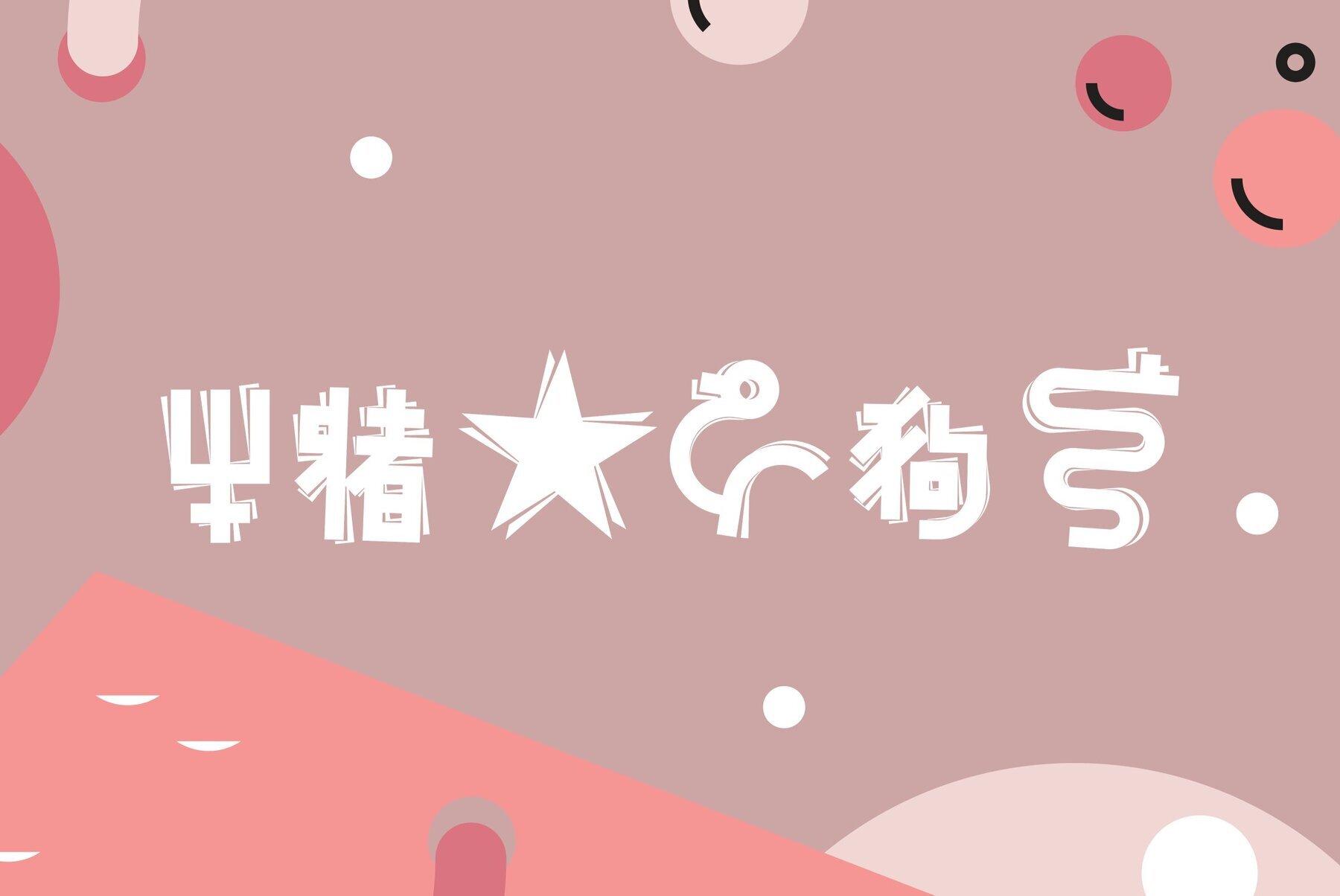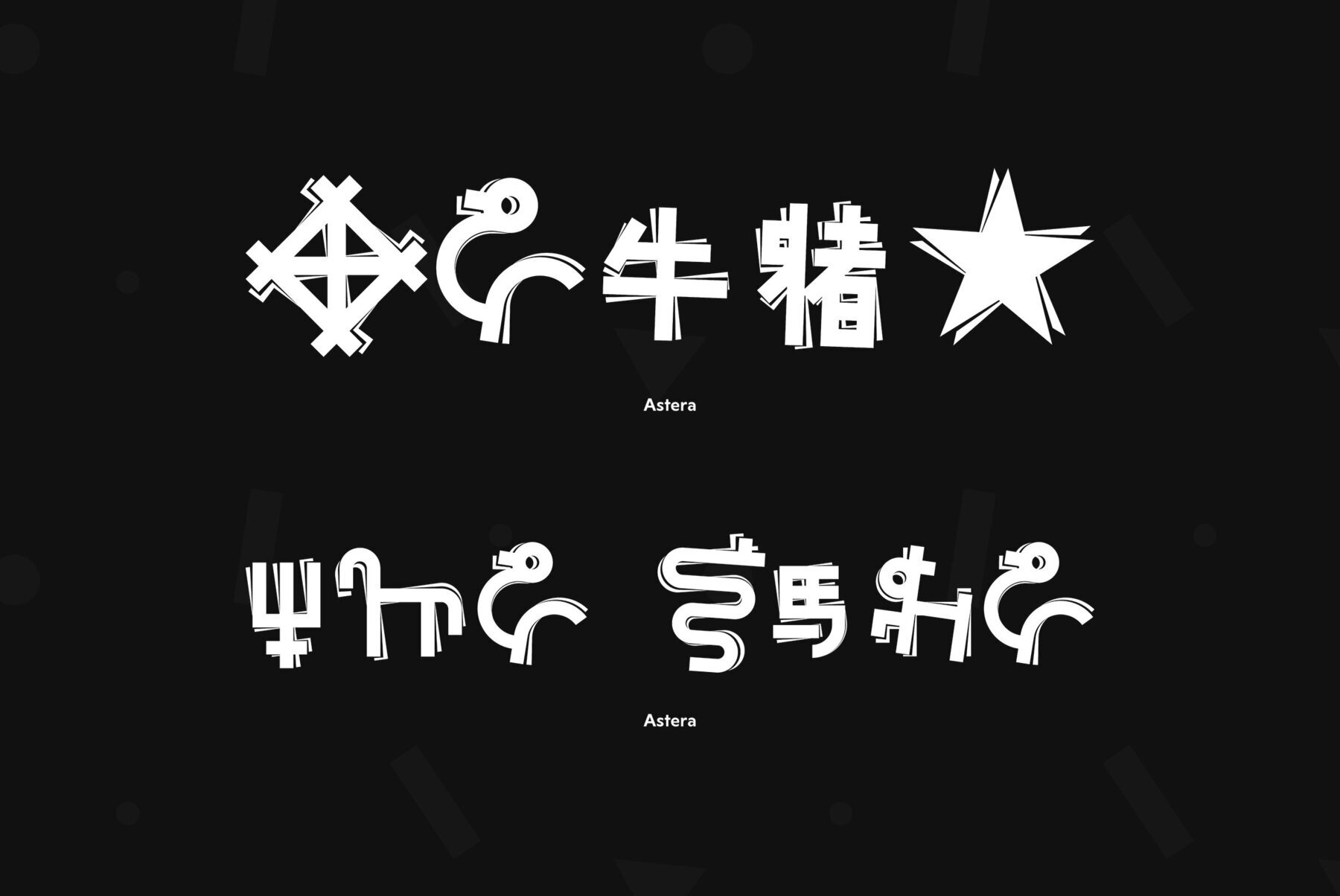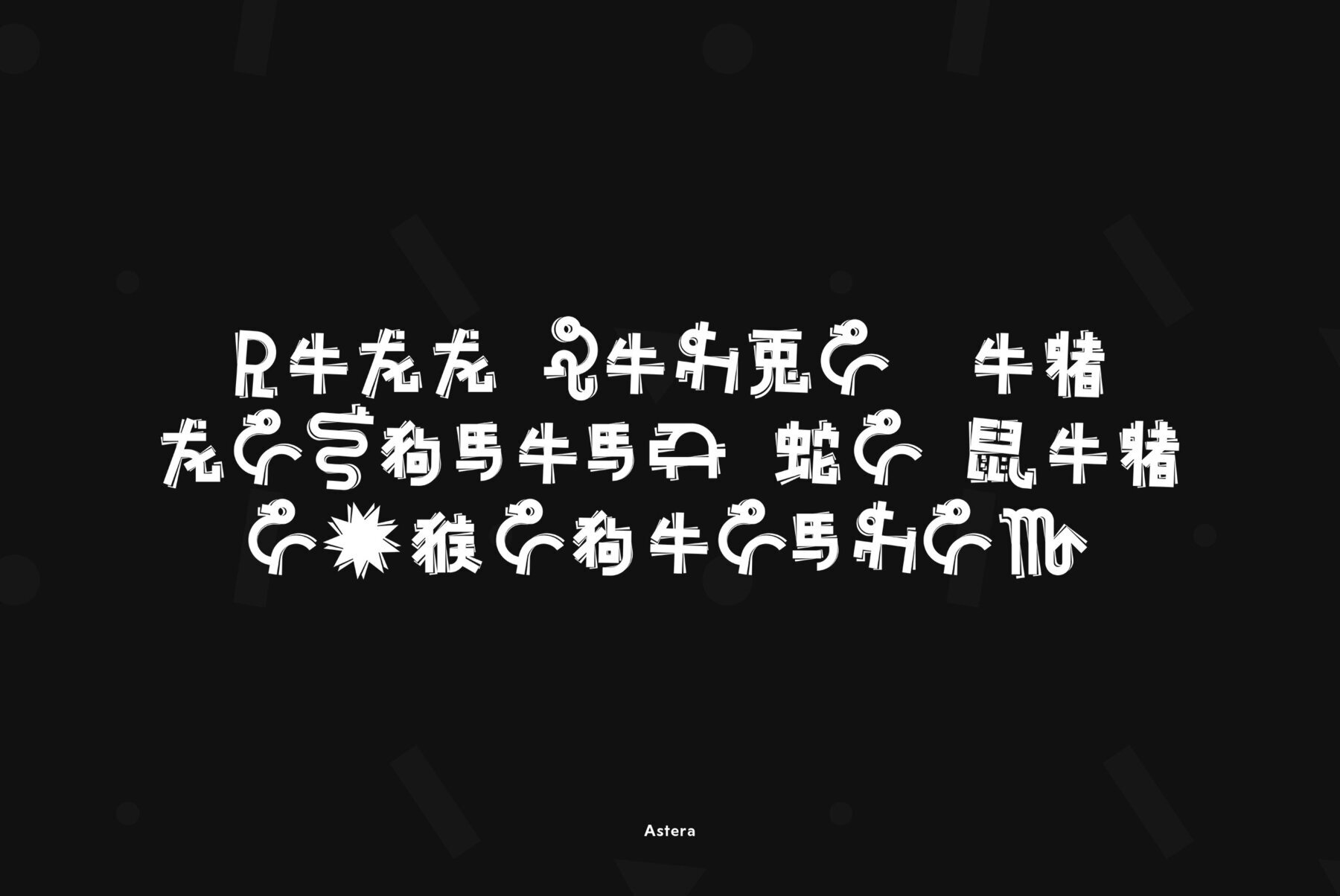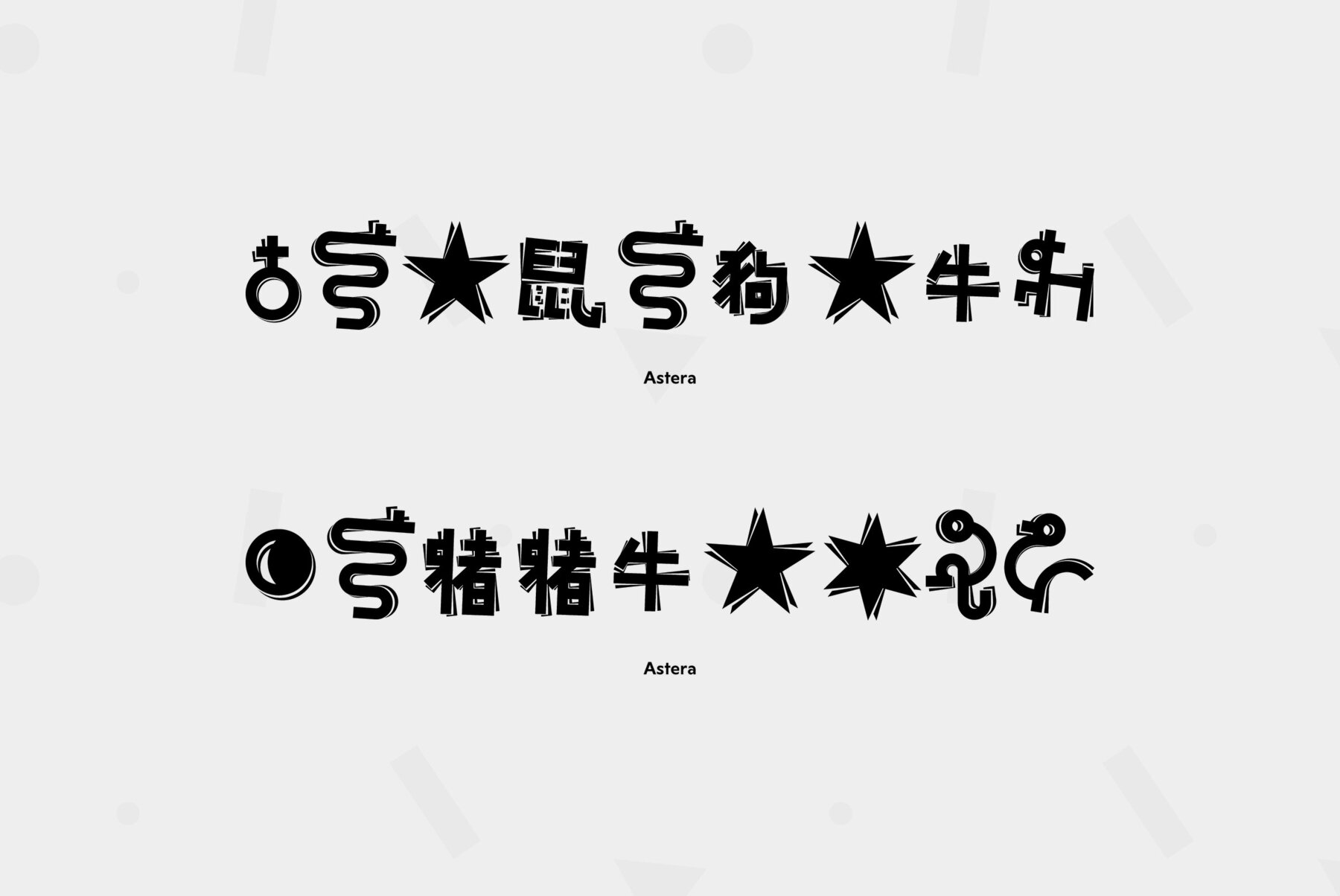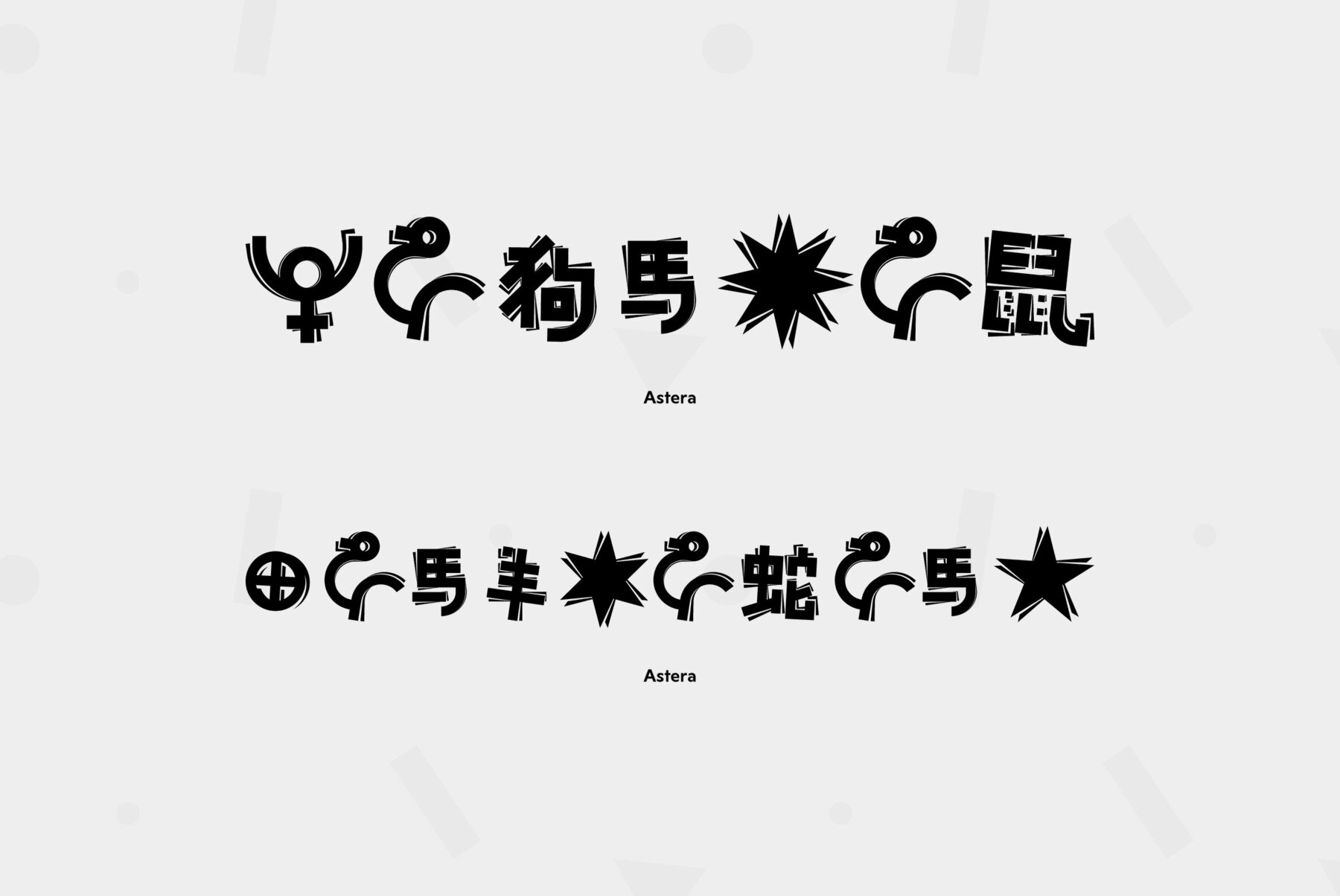
A set of astronomical signs  (symbolic representation of the Sun, the Moon, planets and other celestian bodies as well as zodiacal constellations, phases of the Moon, etc), signs of Chinese Zodiac and several ornamental symbols.
A set of astronomical signs  (symbolic representation of the Sun, the Moon, planets and other celestian bodies as well as zodiacal constellations, phases of the Moon, etc), signs of Chinese Zodiac and several ornamental symbols. Designed by Andrey Belonogov. The typeface (under the name Astra) was awarded a Diploma of TypeArt’05 Design Contest. Released by ParaType in 2008.